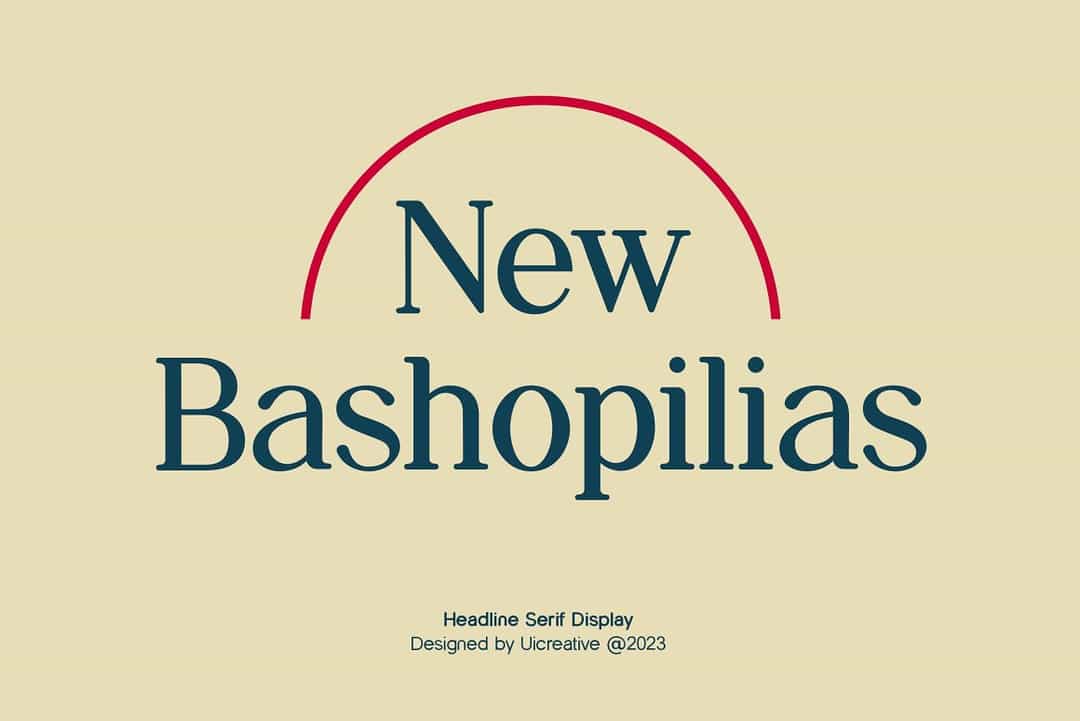
Neue Bashopiliasis an elegant and classic serif font family with multiple weight options that allows you to mix-and-match styles. Ideal for stationary designs, signatures, wedding logos, typography quotes magazines or book covers as well as headers on websites; clothing packaging design branding projects etc – Neue Bashopilias offers endless design opportunities!